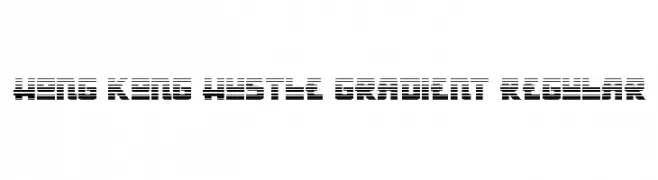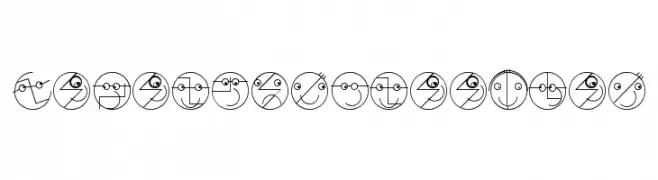
A playful and whimsical font with curvy, flowing letterforms.
A bold, futuristic font with a gradient effect created by horizontal lines.
A bold, geometric font with a modern, industrial style and distinctive cut-out sections.
A bold, playful font with a bubbly, cartoon-like appearance.
A decorative font with intricate butterfly and floral patterns in uppercase letters and numbers.
A futuristic, geometric font with circular nodes and connecting lines.
A playful and creative font with each character designed as a unique face within a circle.